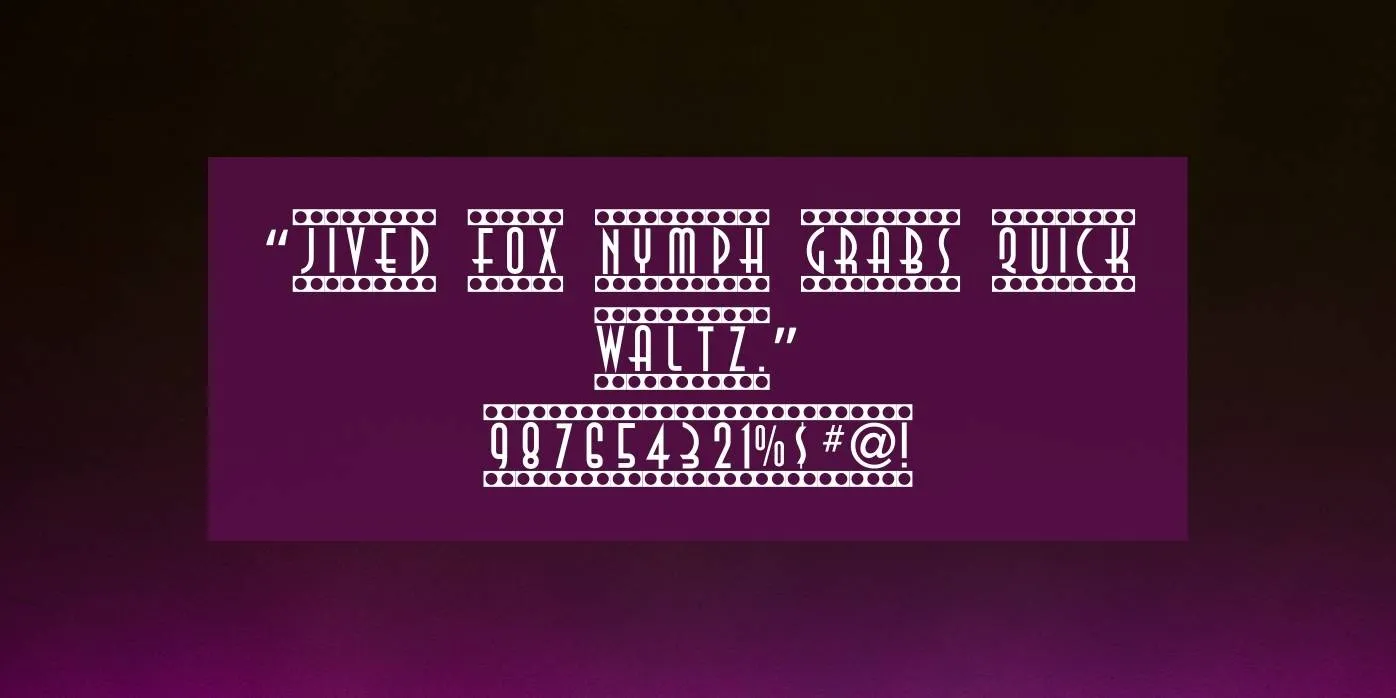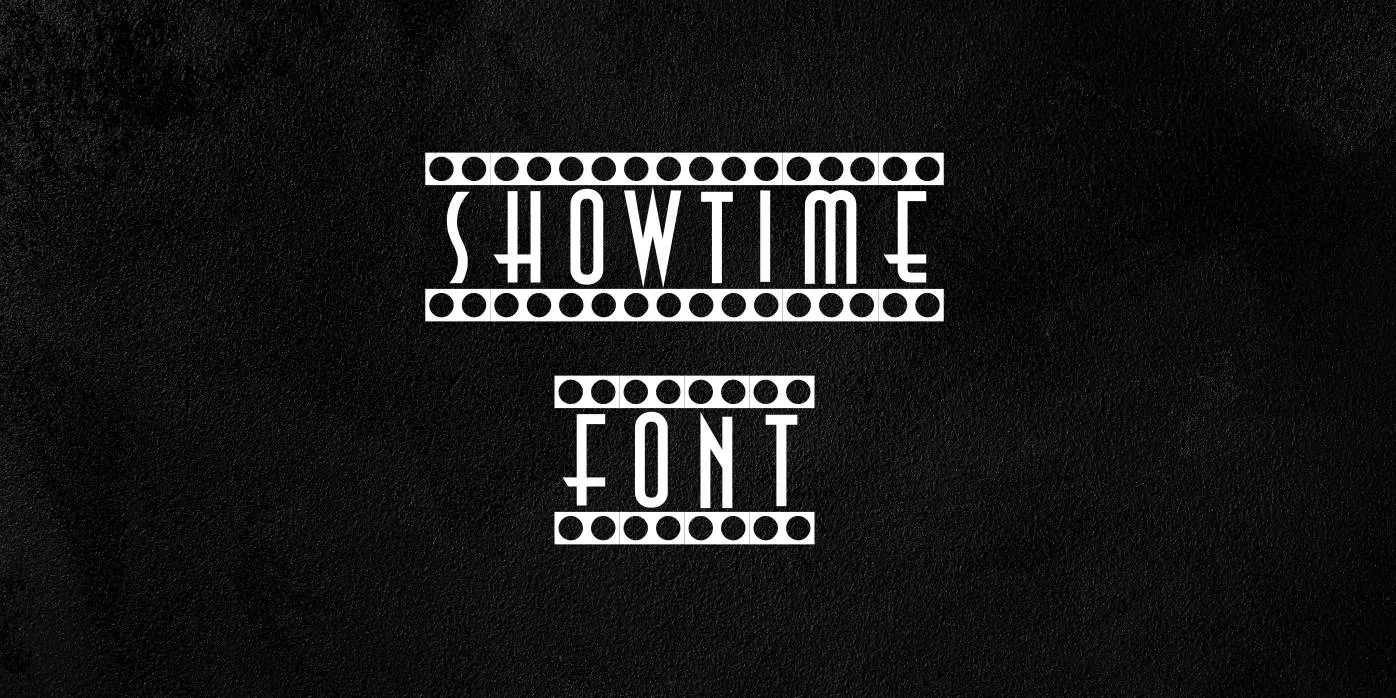
Showtime Font
Today, we discuss a very classic font named Showtime Font. This typeface was developed by Randy Ford. This stunning typeface belongs to the fancy font family.  You can easily use this delightful font for various design purposes. The Showtime Font has a classic and vintage touch.
It is perfect for creating headlines, titles, and logos. This stylish font will give your designs a unique and elegant look. Its copy and paste function is perfect for all designs. This typeface is not included in google fonts.
This typeface comes in two styles: Regular and Bold. Each style contains 100 different glyphs. The Showtime Font includes support for multiple languages including Latin, Cyrillic, and Greek. If you are looking for a classic and elegant font for your next project, then this typeface is classic.